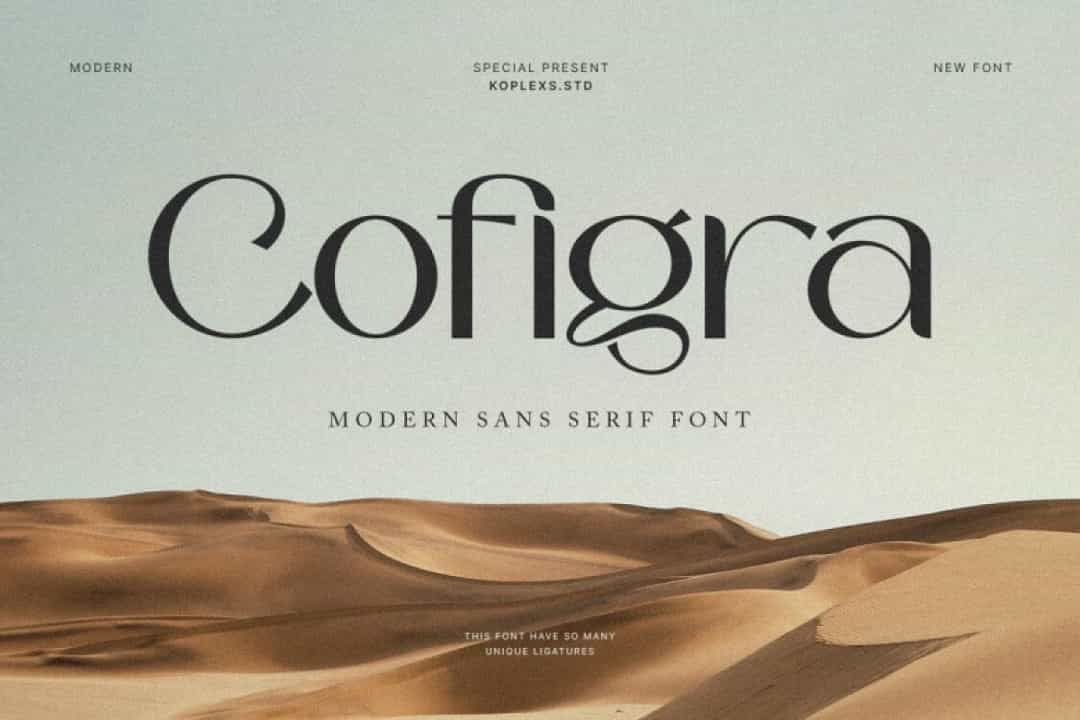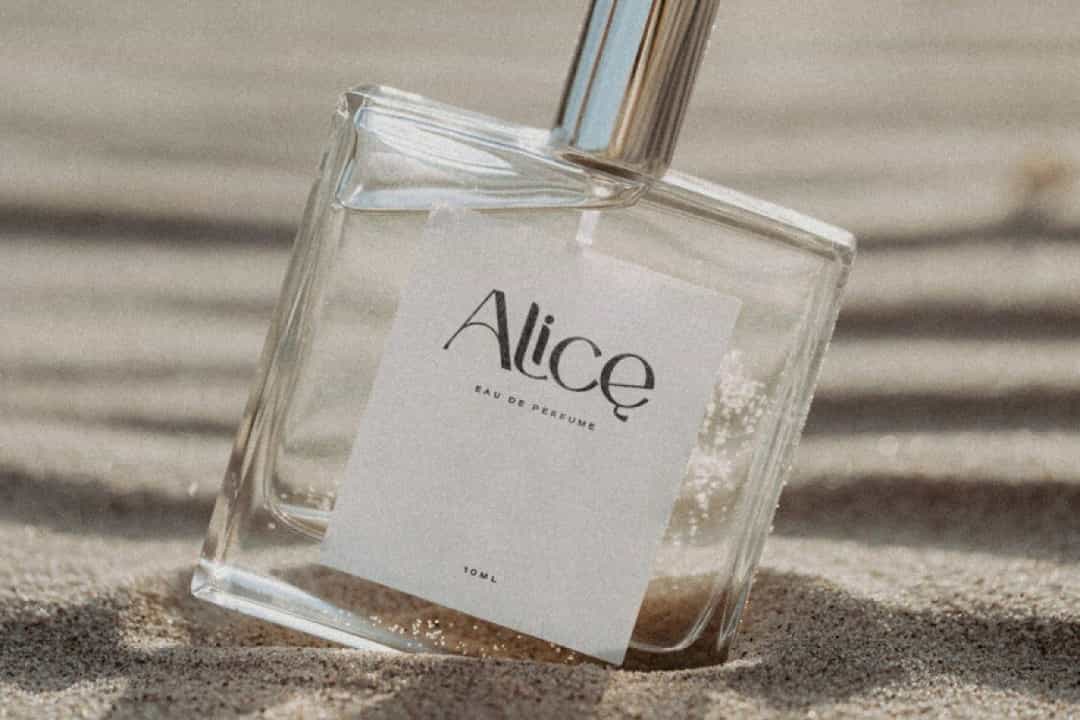
Cofigra Contemporary Sans Serif Font is an assortment of contemporary feminine characters designed to add an eye-catching aesthetic to every branding or design project. Cofigra Modern Sans Serif Font provides an alluring combination of beauty and sophistication, making this font suitable for use across an array of applications like book covers, logos perfumes fashion magazines book covers or invitations.